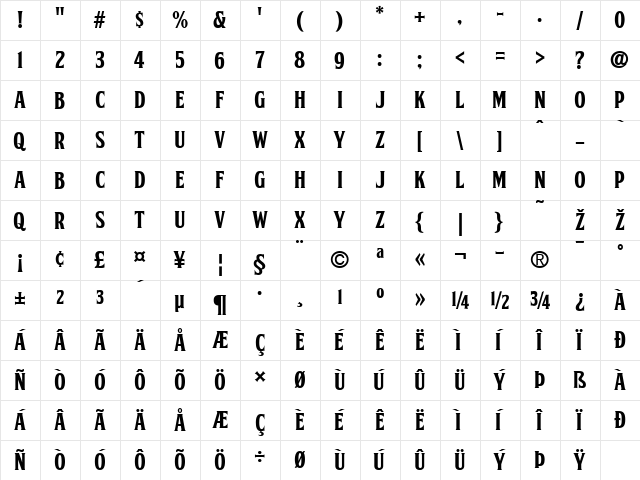
FTY SKORZHEN NCV Regular
Design Context for FTY SKORZHEN NCV Typeface
FTY SKORZHEN NCV offers clean, dependable letterforms without strong stylistic allegiance, making it a practical choice for designers who need flexibility.
Pro Tip: Use FTY SKORZHEN NCV in both headline and body roles to test its range before committing to a single application.